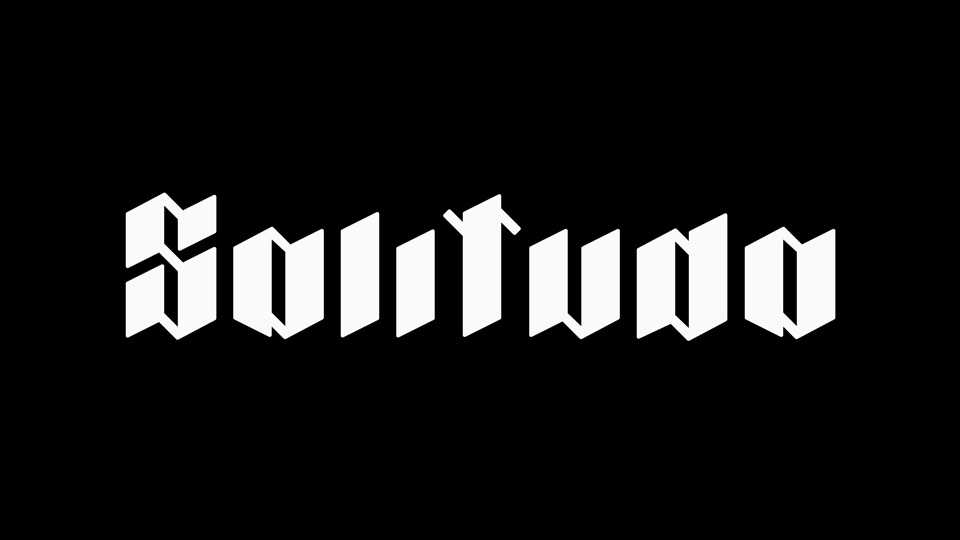
Download Solitudo font, a high contrast sharp and strong display typeface with two styles. Solitudo is great for posters, headlines, album artwork and other digital design.
Designer: Petr Kučera